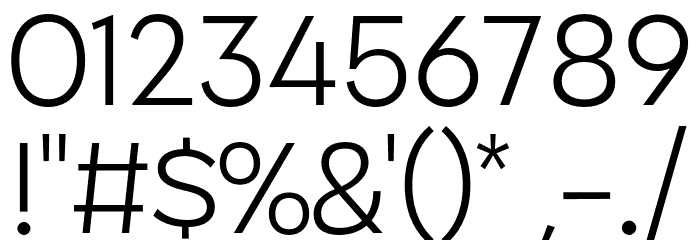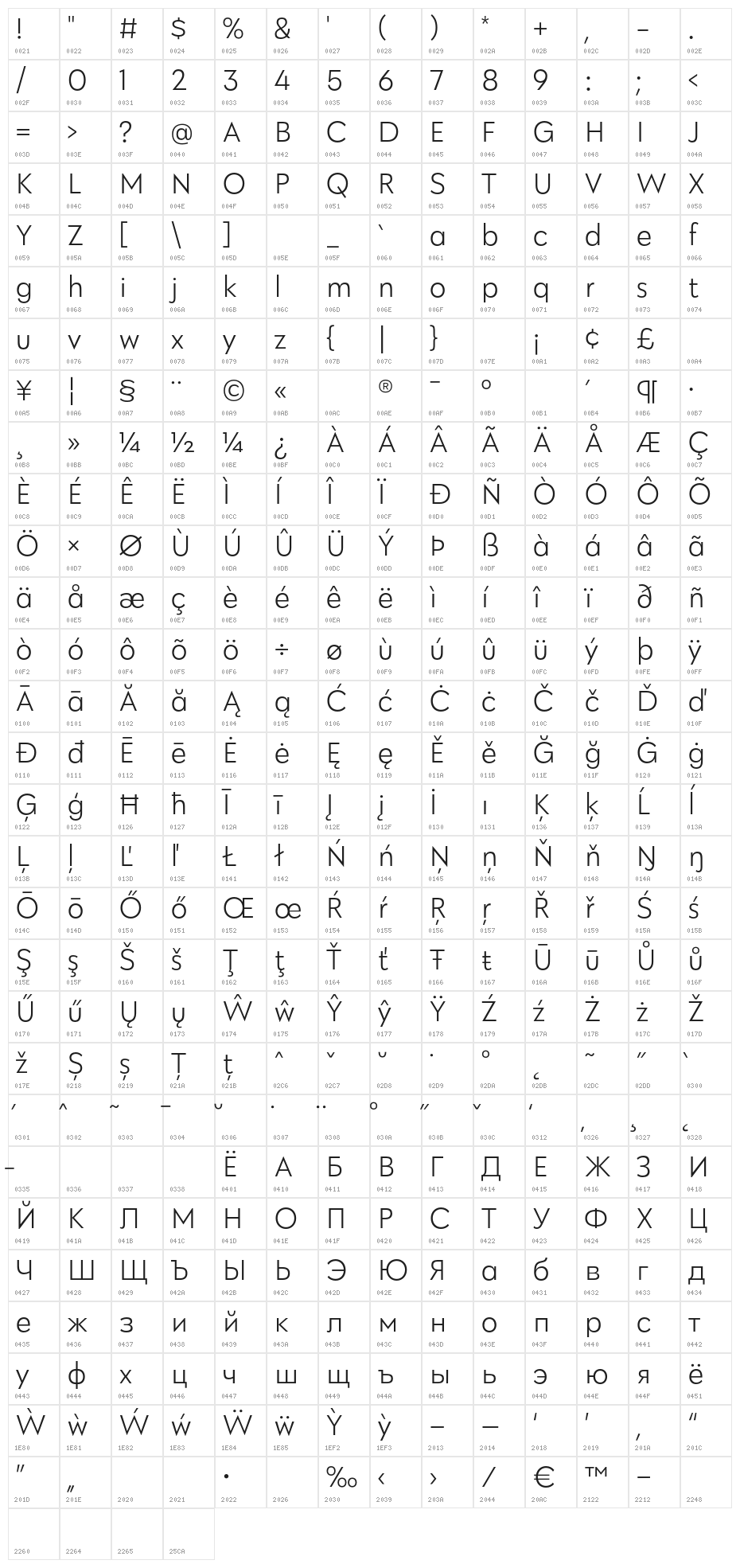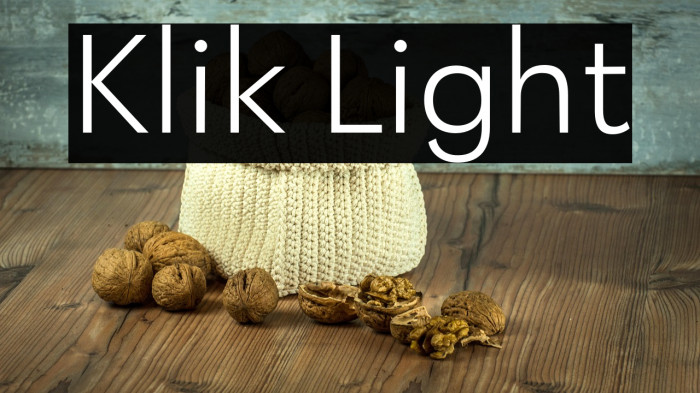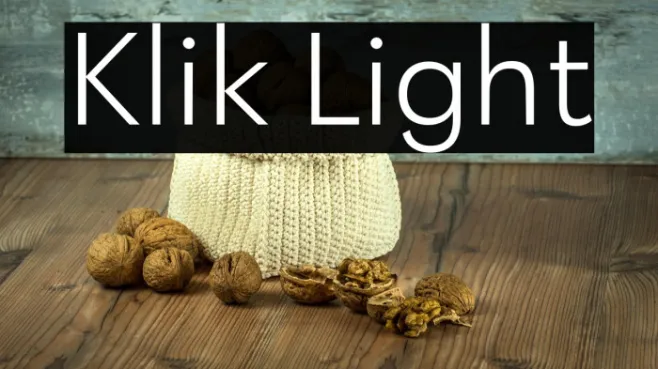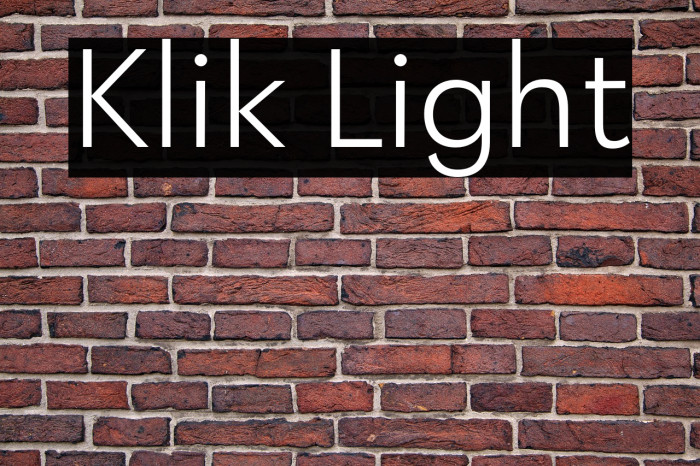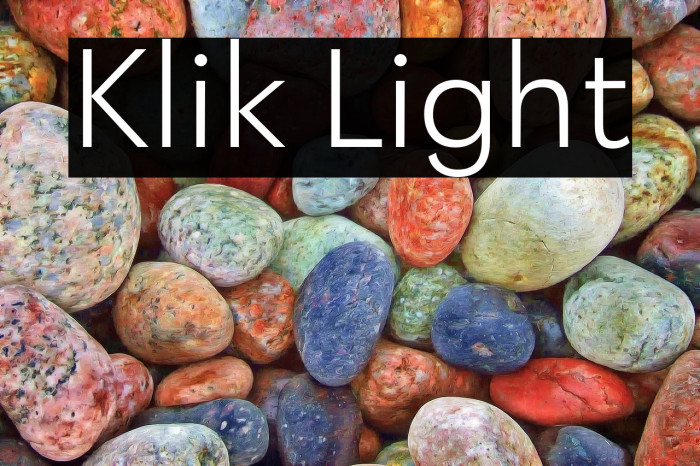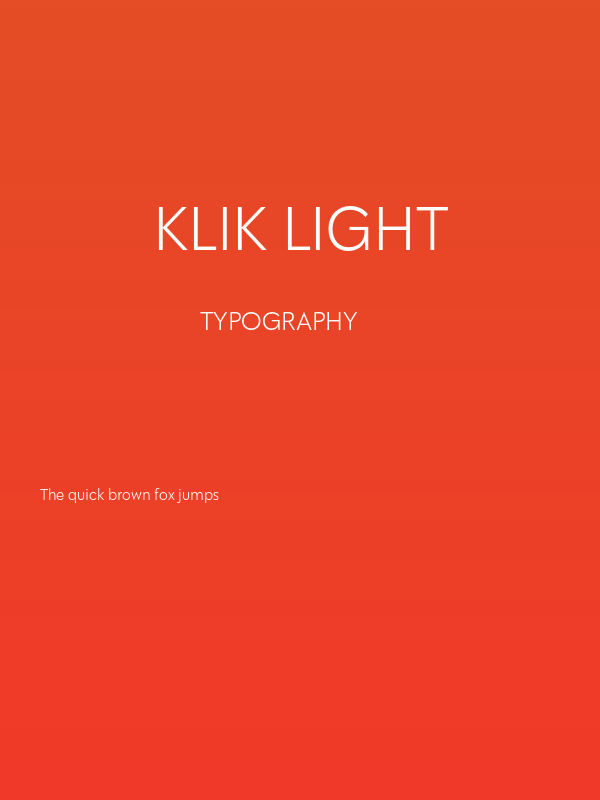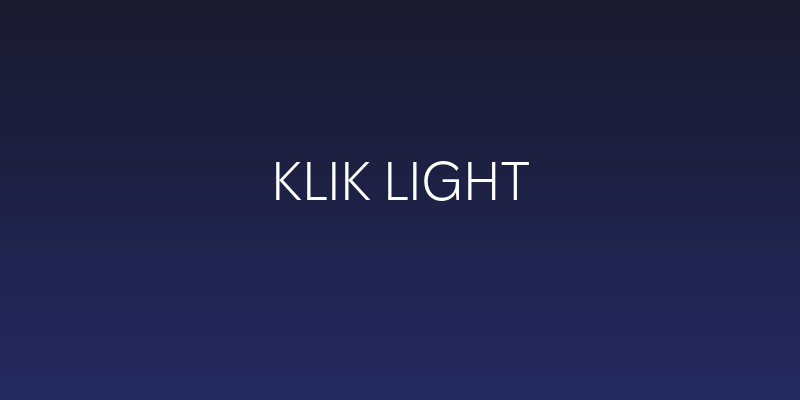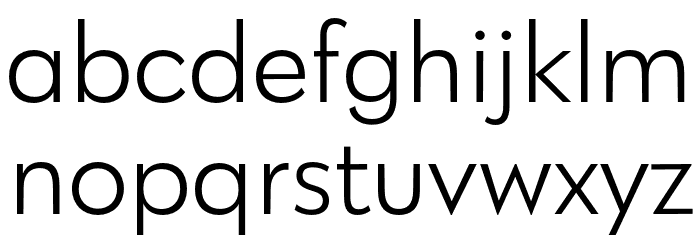
Klik Light Font
Klik Light Description
This font features a clean and modern sans-serif design with a light weight, making it ideal for minimalist and contemporary projects. The characters are evenly spaced with a normal width, providing excellent readability. The strokes are consistent and smooth, with low contrast, which enhances its legibility across various sizes. The overall style is sleek and professional, suitable for a wide range of applications from digital interfaces to print media.